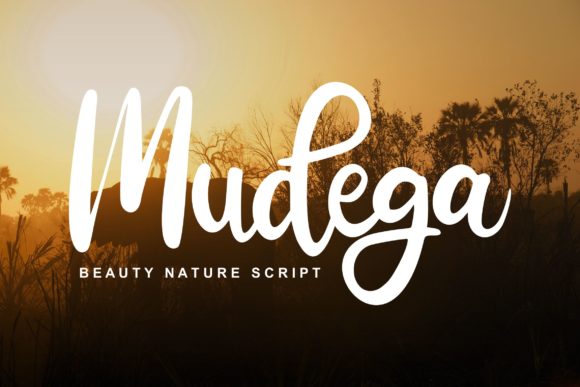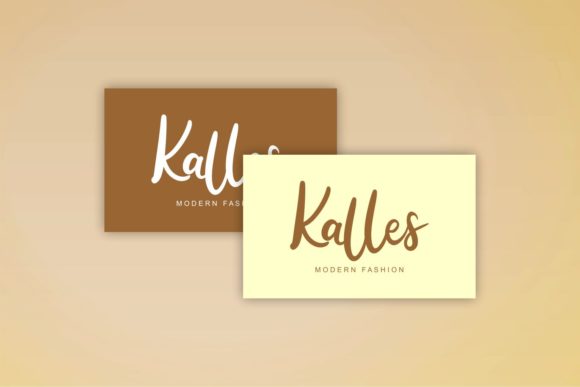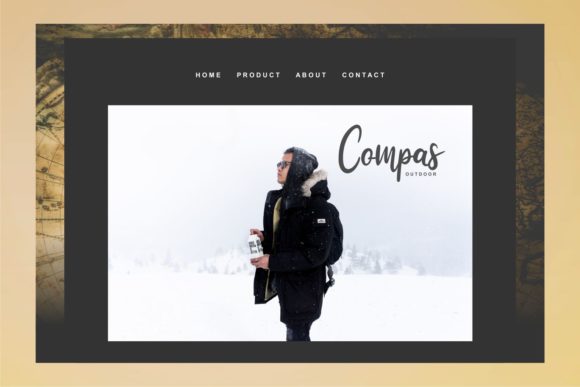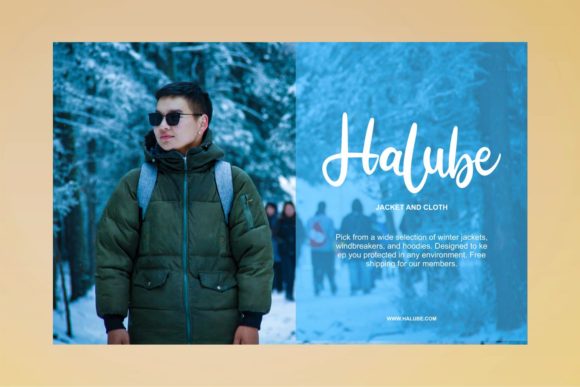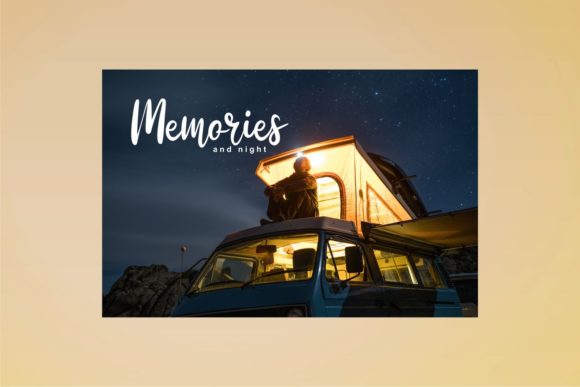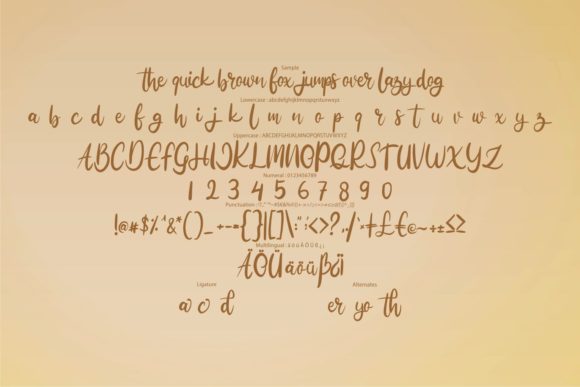
HomeScript FontsMudega Font Script Fonts Mudega Font FacebookXPinterestWhatsApp Mudega Font Poster 2 Mudega Font Poster 3 Mudega Font Poster 4 Mudega Font Poster 5 Mudega Font Poster 6 About Mudega Font Mudega is a classy and playful script with great energy. Get inspired by its unique charm! DOWNLOAD ON CREATIVE FABRICAThis font is sold and delivered by Creative Fabrica. Font Canyon may earn a commission if you buy through this link. People also explored Knucklehead Smart Student Font Partyzone Font Monogram Love Wave Font Falling Font Alestraza Font Sense Black Forest Font Muinerve Extra Light Font 374 0 TagsMudega Font Previous articleSleep Owl FontNext articleSignature Collection Font LEAVE A REPLY Cancel reply Comment: Please enter your comment! Name:* Please enter your name here Email:* You have entered an incorrect email address! Please enter your email address here Website: Save my name, email, and website in this browser for the next time I comment. Personal Use Free Panaroe Personal Use Free Read more about this font Brandon Bromley Personal Use Free Read more about this font Hollow Personal Use Free Read more about this font Scoothlane Personal Use Free Read more about this font BLOG Free vs Paid Fonts: Why Investing in Premium Fonts Is Worth It Free vs Paid Fonts: Why Premium Fonts Are Worth It in 2025 The debate of free vs paid fonts continues in the design world. While... Top 10 Handwritten Fonts That Elevate Your Designs The 10 Best Handwriting Fonts to Add Personality to Your Designs Using Fonts in Digital Marketing: Tips to Strengthen Your Brand Identity